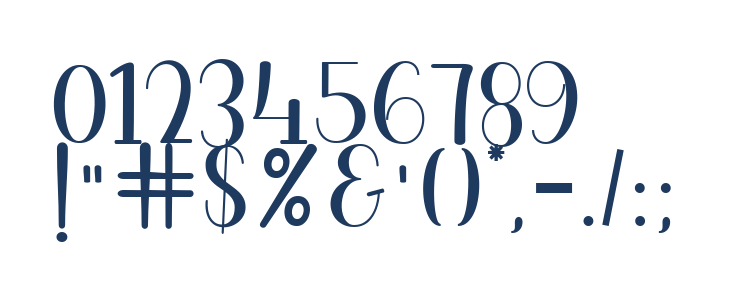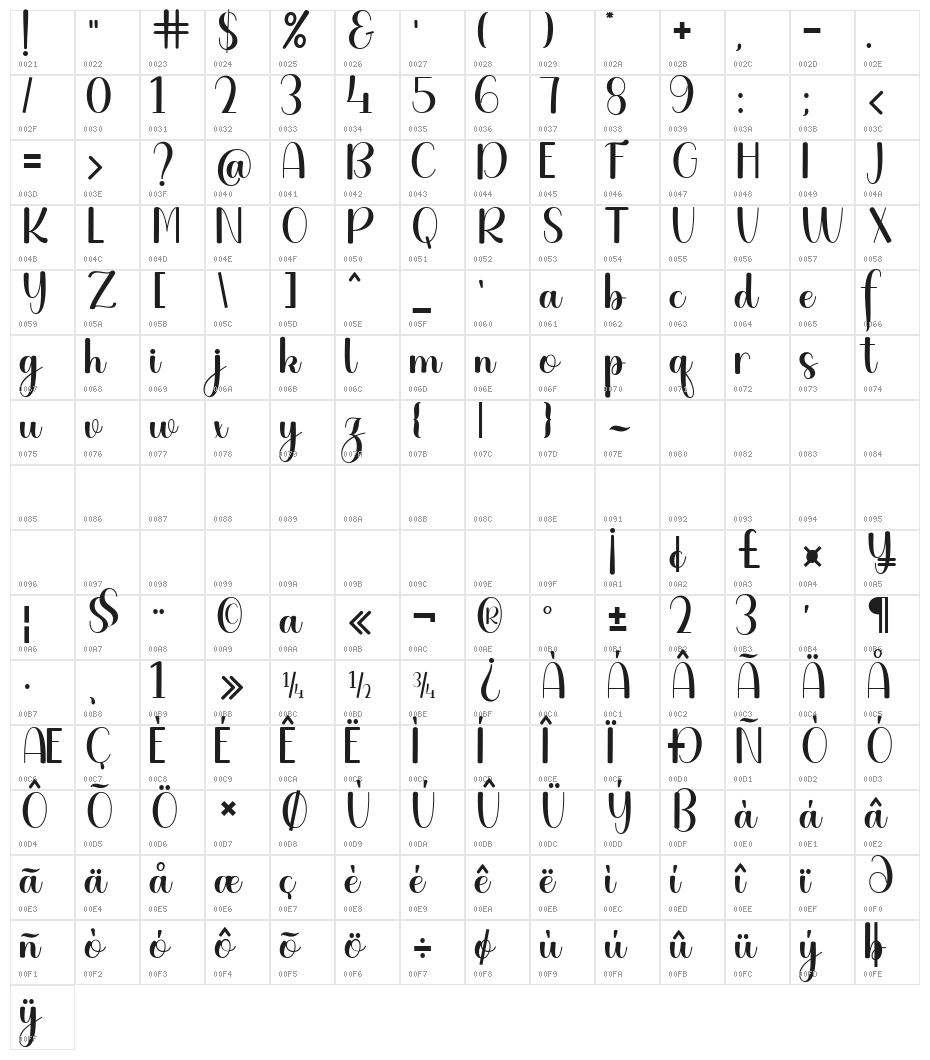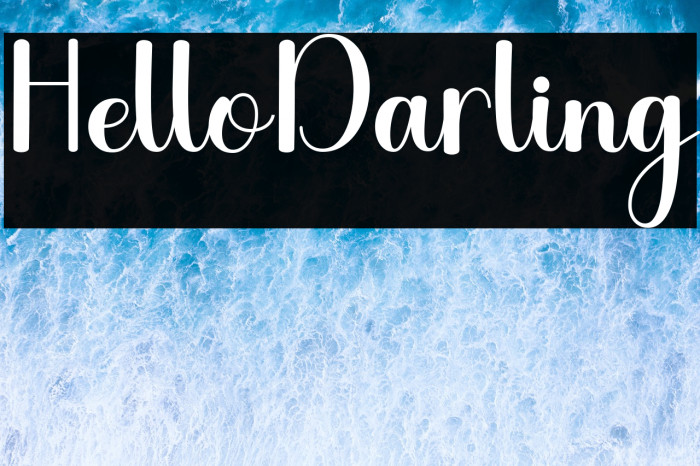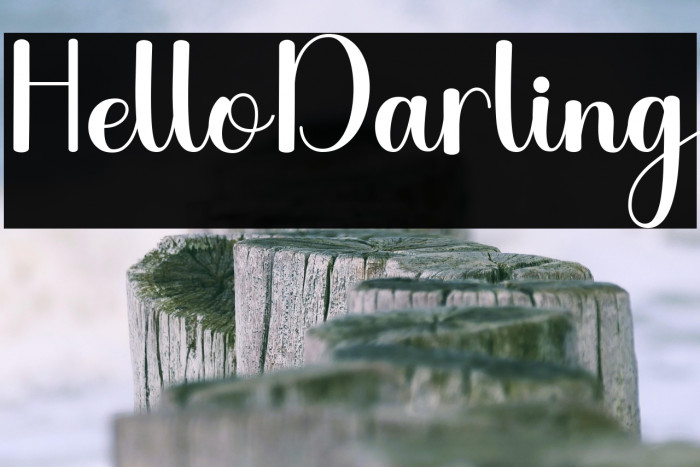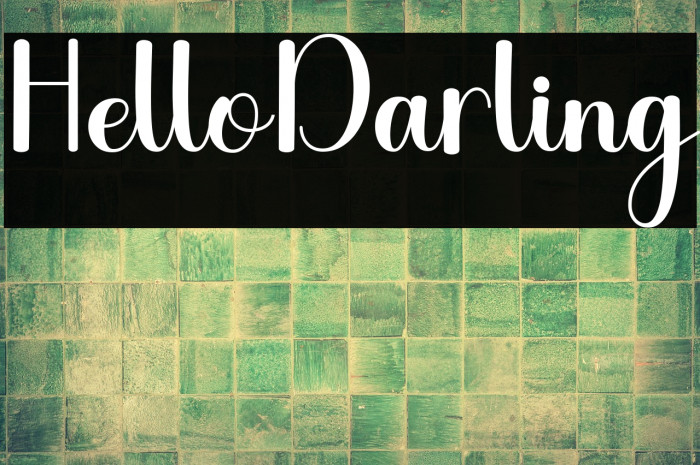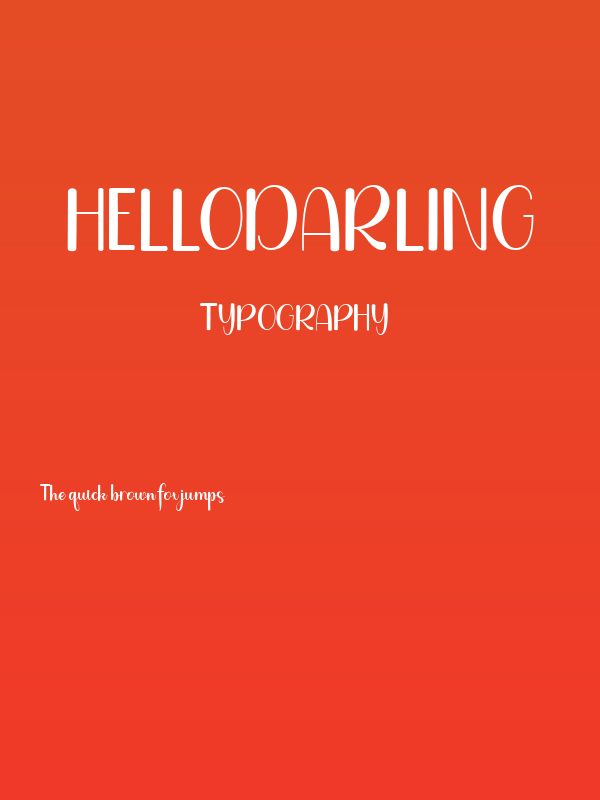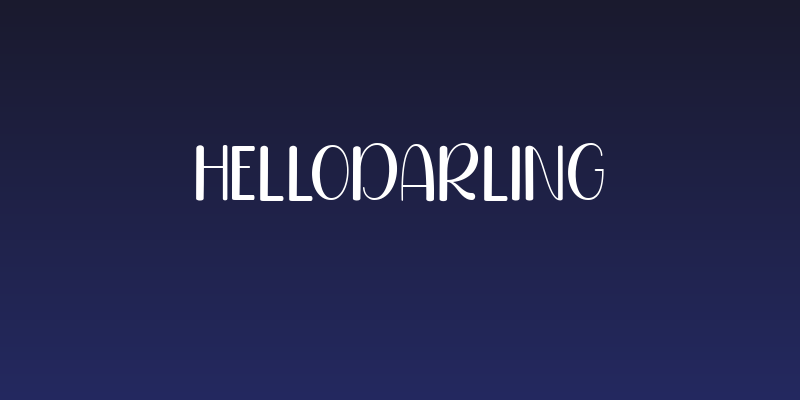
HelloDarling Font
HelloDarling Description
This font features a playful and elegant script style with a modern twist. The uppercase letters are tall and slender, with smooth curves and a slight slant, giving them a sophisticated yet approachable look. The lowercase letters are more ornate, with flowing lines and loops that add a touch of whimsy and charm. The numerals are consistent with the overall style, maintaining the same elegant curves and balanced proportions. Special characters are thoughtfully designed to match the aesthetic, ensuring a cohesive appearance across all text. This font is ideal for projects that require a touch of elegance and personality, such as invitations, branding, and decorative headlines.
| Proposed Projects | Ideal for wedding invitations, branding, decorative headlines, and greeting cards. |